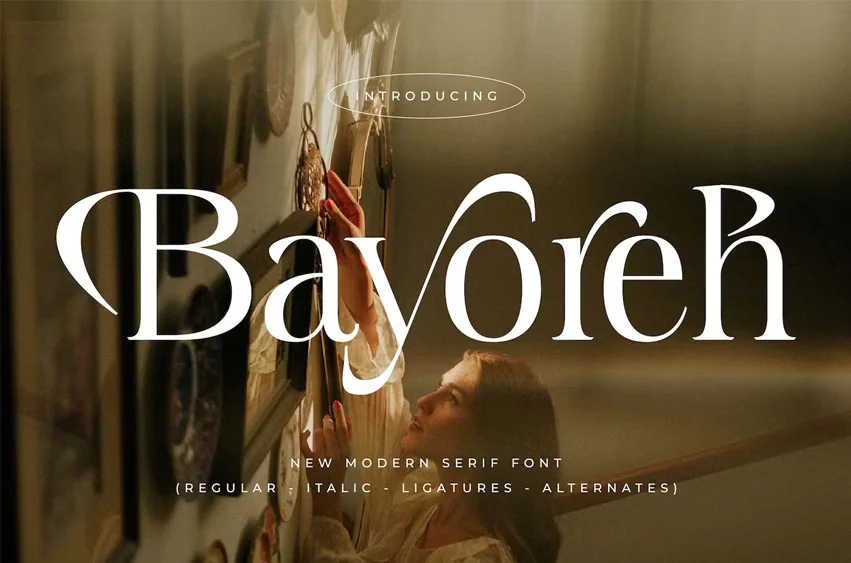
Bayoreh Font
Bayoreh Font ladies & gentlemen, this is one of our fonts suitable to complement your digital and printed creative products. This font is perfect for posters, social media posts, branding, personal projects, etc.